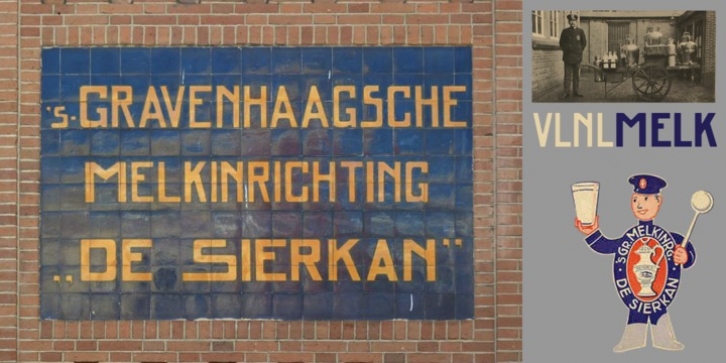
One time visiting The Hague, Donald DBXL spotted a tile tableau on a brick wall, advertising a dairy factory called 'De Sierkan'. Yellow sans serif letters on a bright blue background, dating back to the late 19th century, immediately grabbed DBXL's attention. Especially because the tableau showed both regular and bold letters with some lovely peculiarities here and there. De Sierkan appeared to have been a milk factory solely operating in The Hague from 1879 until 1961. A number of these wall adverts are still to be seen in The Hague streets today. Photos were taken for later reference. Later is now, the lettering has been digitized, missing characters added, and VLNL Melk sees the light of day.
VLNL Melk is an all-caps geometric display sans serif family of three weights, Regular, Bold and Black. The basic shape of the letters is a rectangle with rounded corners, leaving a sturdy no-nonsense look and feel. It has a distinct historic aura, but with both feet in this digital day and age. It can equally well be used for the logo of a hipster coffee place, as the cover of a historic novel. Actually, VLNL Melk kan be applied in a wide range of designs like logos, posters, flyers, book covers and magazine headlines.
· VLNL Melk
· VLNL Melk Bold
· VLNL Melk Black